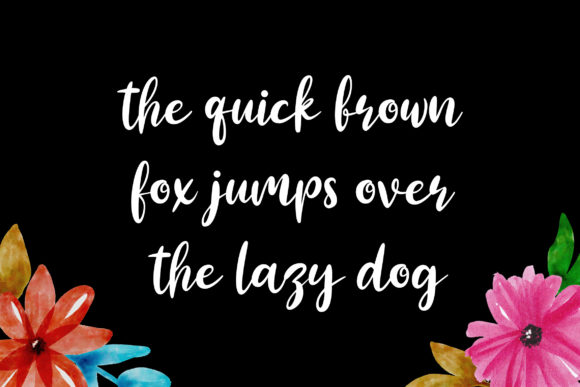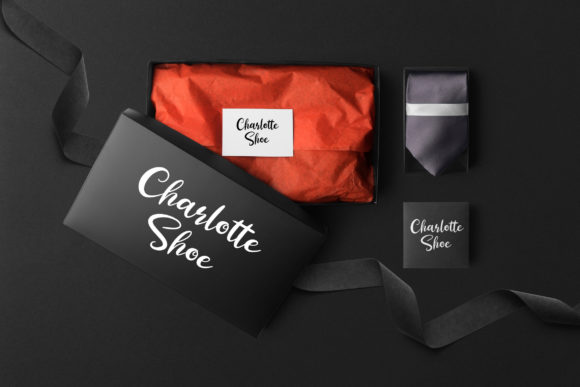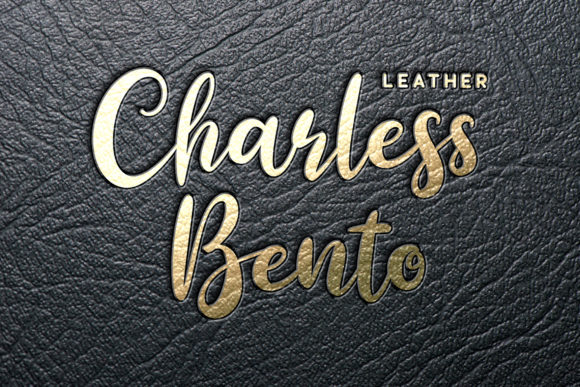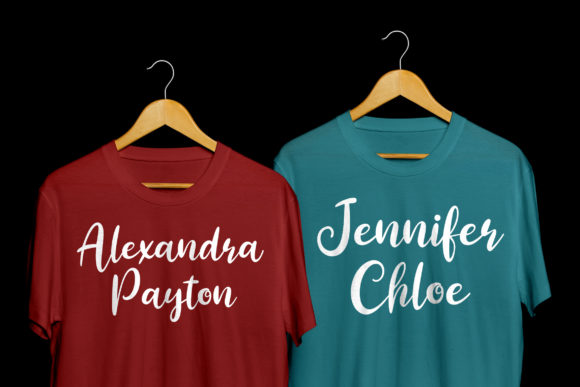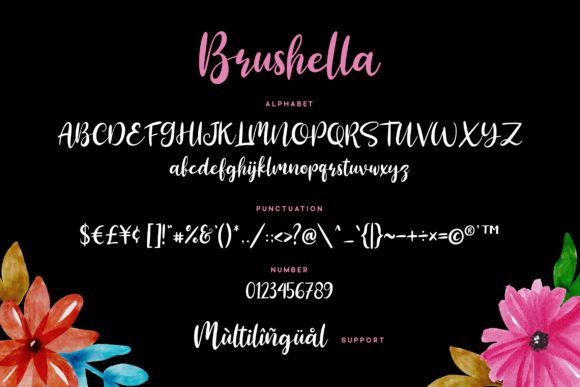
Discover the Elegance of Brushella Font: A Modern Script Font with Timeless Charm
Are you a designer or crafter looking for a font that exudes elegance and sophistication? Look no further than Brushella Font, a beautiful and delicate script font that is sure to capture your heart. With its modern authenticity and stunning look, Brushella is the perfect choice for a wide range of design projects, from wedding invitations and branding materials to digital content and craft projects.
The Beauty of Brushella Font
Brushella Font is a script font that boasts an incredibly beautiful and delicate design. Its intricate lines and curves create a sense of movement and fluidity, making it perfect for designs that require a touch of elegance and sophistication. The font’s modern authenticity ensures that it looks fresh and contemporary, while its classic script style ensures that it remains timeless and versatile.
What Makes Brushella Font So Special?
So, what sets Brushella Font apart from other script fonts on the market? Here are just a few features that make it a standout choice for designers and crafters:
- Delicate and Elegant Design: Brushella Font features an incredibly delicate and elegant design that is sure to add a touch of sophistication to any project.
- Modern Authenticity: Despite its classic script style, Brushella Font has a modern authenticity that ensures it looks fresh and contemporary.
- Highly Versatile: Brushella Font is highly versatile and can be used for a wide range of design projects, from wedding invitations and branding materials to digital content and craft projects.
- Easy to Read: Despite its delicate design, Brushella Font is easy to read, making it perfect for designs that require a clear and legible font.
Uses for Brushella Font
Brushella Font is a highly versatile font that can be used for a wide range of design projects. Here are just a few ideas to get you started:
- Wedding Invitations: Brushella Font is perfect for wedding invitations, adding a touch of elegance and sophistication to your special day.
- Branding Materials: Use Brushella Font to create beautiful branding materials, such as logos, business cards, and letterheads.
- Digital Content: Brushella Font is perfect for digital content, such as blog posts, social media graphics, and email newsletters.
- Craft Projects: Brushella Font is also perfect for craft projects, such as card making, scrapbooking, and DIY gifts.
Tips for Using Brushella Font
Here are a few tips for using Brushella Font in your design projects:
- Use it Sparingly: Brushella Font is a delicate font, so use it sparingly to avoid overwhelming your design.
- Pair it with a Bold Font: Pair Brushella Font with a bold font to create a striking contrast and add visual interest to your design.
| Font Name | Brushella Font |
| Author | Grezline Studio |
In conclusion, Brushella Font is a beautiful and delicate script font that is sure to capture your heart. With its modern authenticity and stunning look, it is the perfect choice for a wide range of design projects. Whether you’re a designer or crafter, Brushella Font is a must-have font that will add a touch of elegance and sophistication to any project.